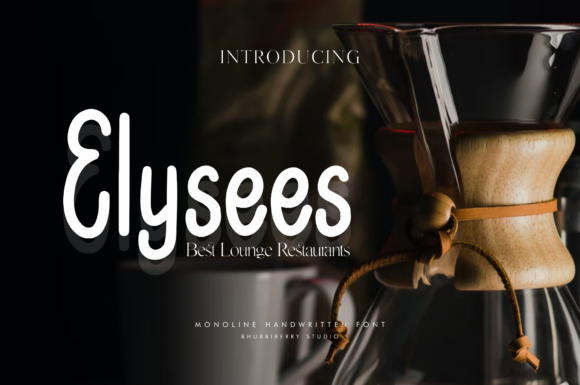
Introducing Elysees Font, the enchanting script font that will captivate your designs with its alluring charm. This masterpiece, crafted by the talented hands of bhubbiberrystudio, is a symphony of elegance and playfulness that will make your creations stand out from the crowd.
Elysees Font is not just a font; it's a gateway to a world of limitless possibilities. Its delicate strokes dance across the page like a gentle breeze, evoking a sense of warmth and intimacy that will draw your audience in. Whether you're crafting heartfelt invitations, designing whimsical posters, or creating eye-catching social media posts, Elysees Font will infuse your work with a touch of magic.
Imagine your words taking flight, adorned with the graceful curves and charming imperfections of Elysees Font. Your messages will resonate with a depth and authenticity that will leave a lasting impression on your readers. Each letter, meticulously crafted with love and care, carries with it a story, inviting your audience to delve into the enchanting world you've created.
With Elysees Font, your designs will transcend the ordinary and enter the realm of the extraordinary. Its versatility knows no bounds, making it the perfect choice for a wide range of creative projects. Let your imagination soar as you explore the infinite possibilities that await you with this captivating script font.
Don't settle for fonts that blend into the background. Choose Elysees Font and watch your designs blossom with a breathtaking allure that will captivate and inspire. Its sweet and friendly nature will make your creations irresistible, leaving an unforgettable mark on the hearts of your audience.